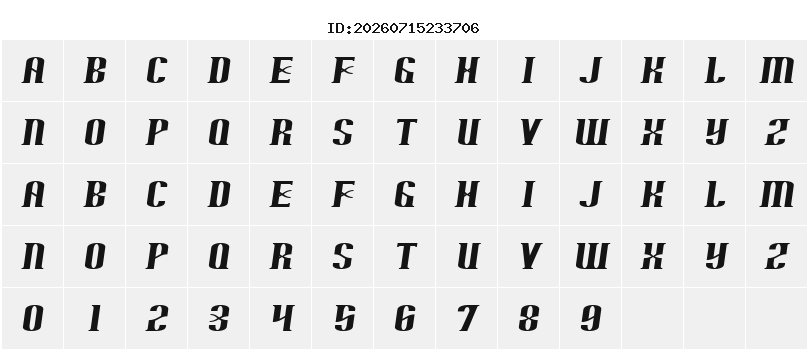
Arnprior Preview
• Font Name: Arnprior
• Designer: Ray Larabie
• Manufacturer: Larabie Fonts
About Arnprior.ttf
Arnprior.ttf is a modern, elegant sans-serif font designed for ultimate readability and visual harmony. Perfect for branding, headlines, web design, and print materials.